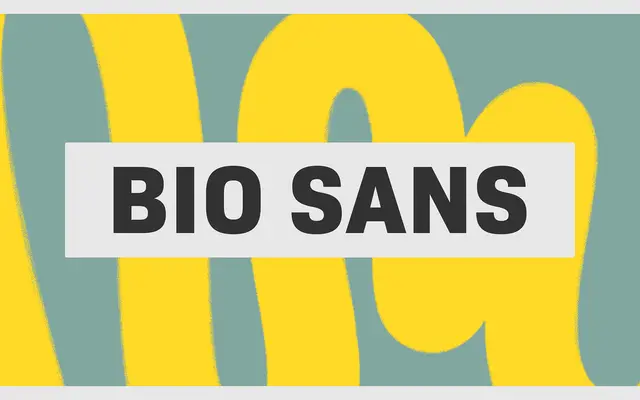
Bio Sans
Dharma Type · Ryoichi Tsunekawa
A neutral geometric sans in six weights with italics, designed by Ryoichi Tsunekawa for text use across digital and print media.
Built on a geometric skeleton with optical refinements, it shares a design philosophy with Bebas Neue in its pursuit of flatness and transparency, though here applied to text rather than display use. A large x-height aids readability at small sizes on screen, and the family covers Western, Central and South Eastern European languages alongside Afrikaans. OpenType features include proportional figures, fractions, ordinals and case-sensitive forms for professional typographic work.
Built on a geometric skeleton with optical corrections, designed for neutrality and legibility at text sizes. The foundry describes it as super-flat and transparent, placing it squarely in the geometric sans tradition.